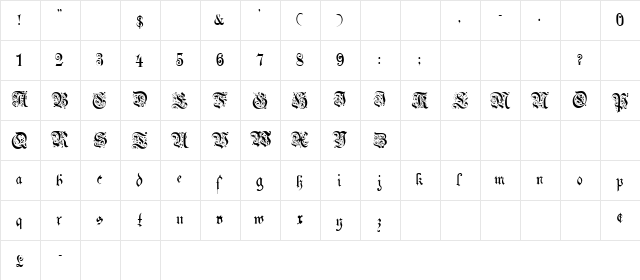
Uechi Regular
Design Context for Uechi Typeface
Uechi is a composed and adaptable typeface that performs quietly and consistently across a wide range of design contexts.